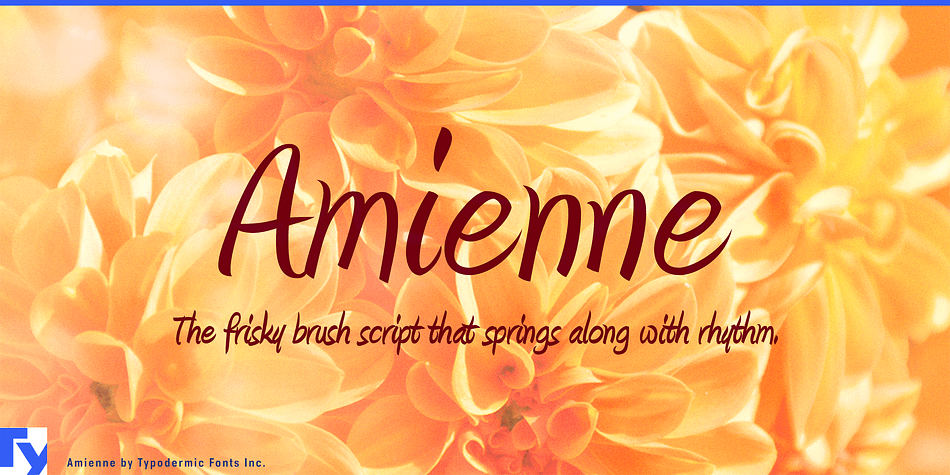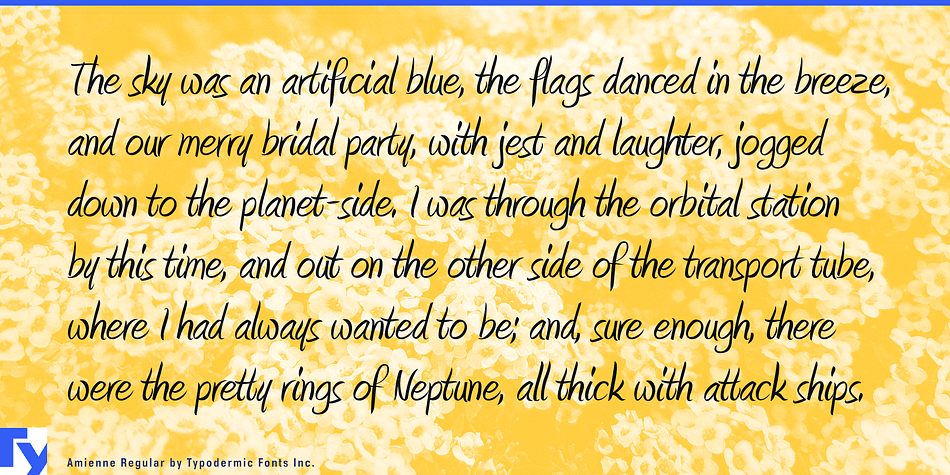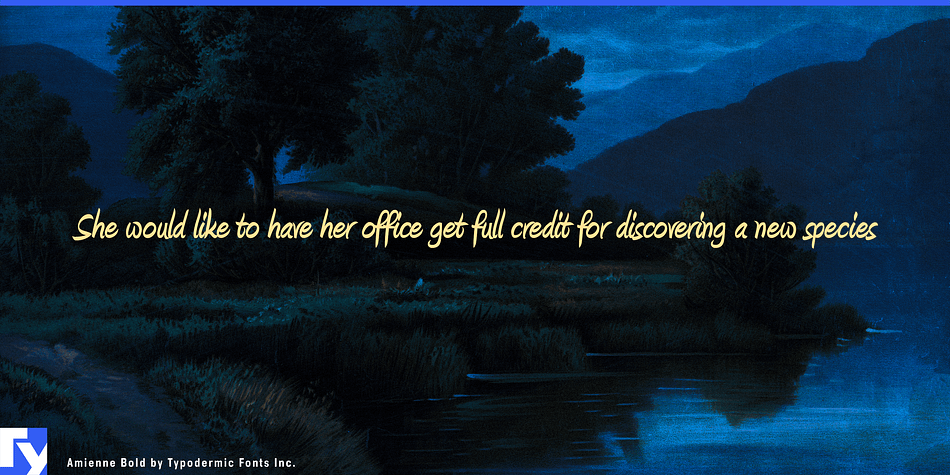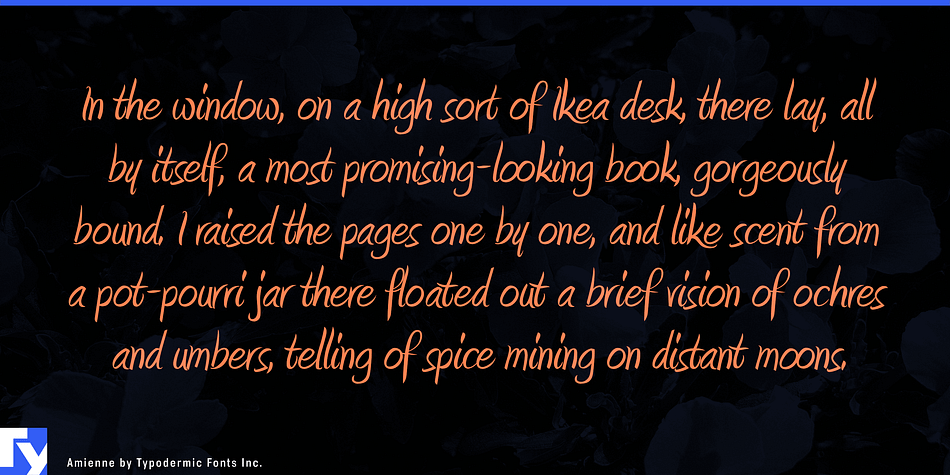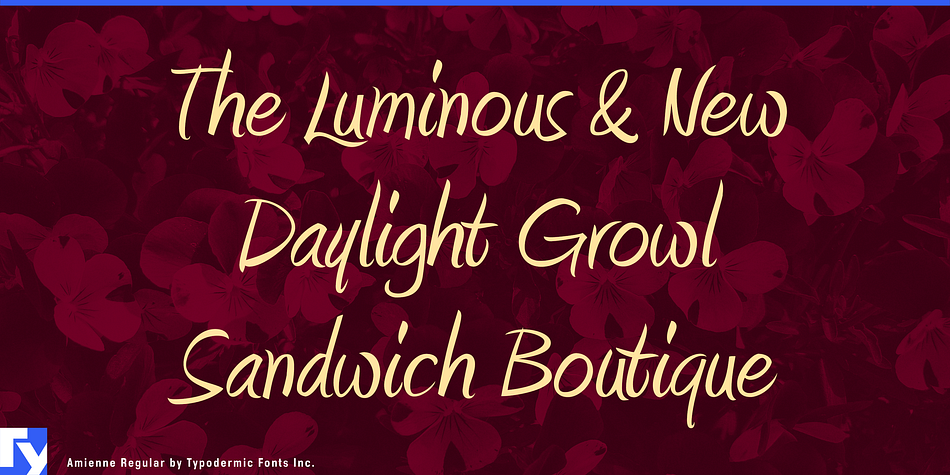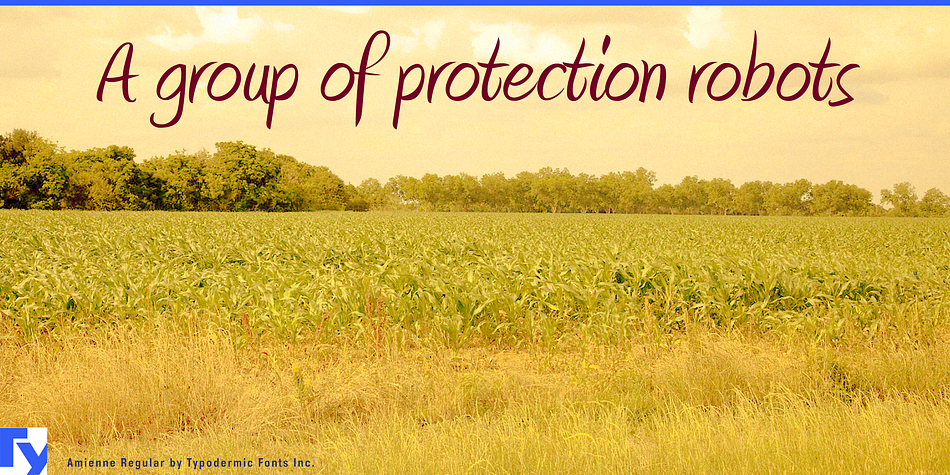
Amienne is a script font family. This typeface has two styles and was published by Typodermic Fonts Inc.
Charmingly informal, Amienne is a lively brush script font that moves with a nimble rhythm. If a ligatures feature is available in your application, certain letter combinations will be replaced with custom glyphs, to create a more natural looking brush flow. Amienne is available in Regular and Bold styles.